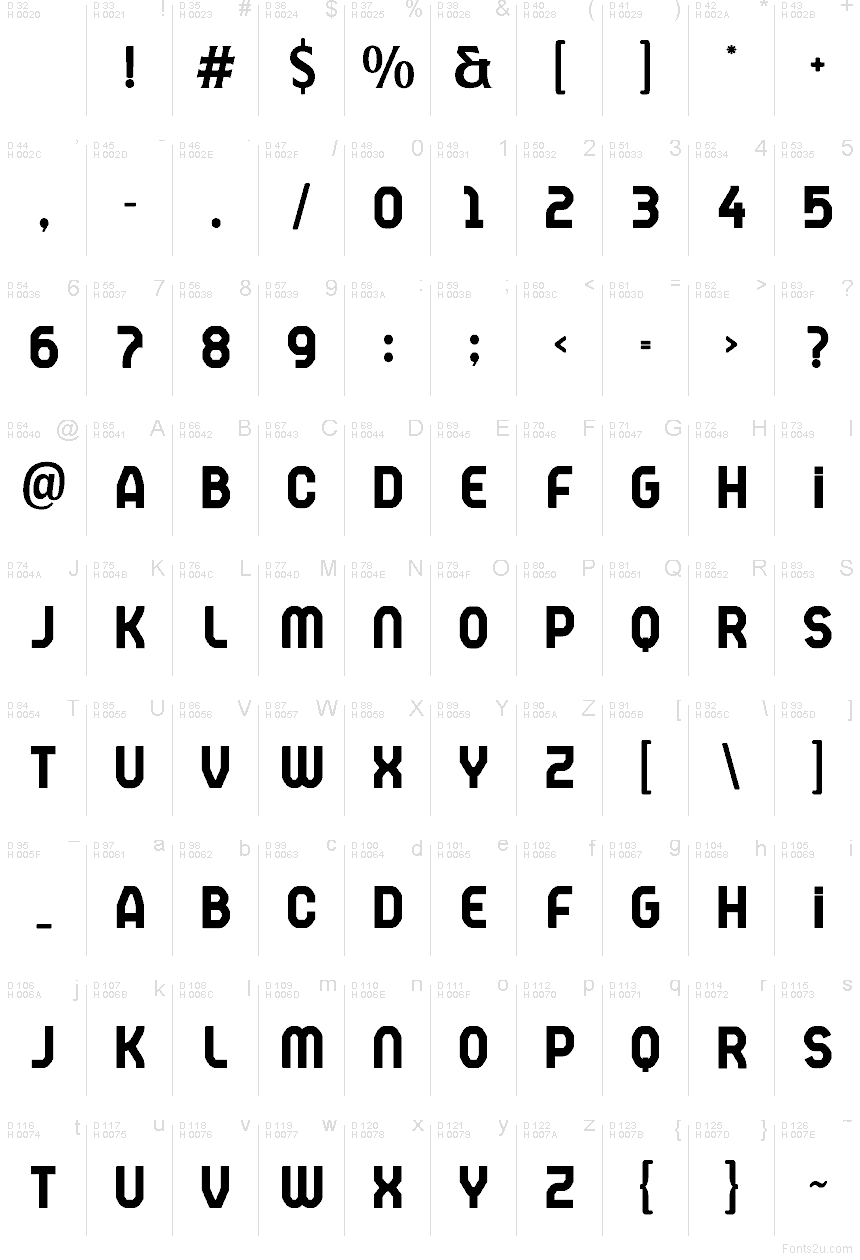
Catalunya Sans by Trequartista Studio is a free geometric sans serif with a blunt, cut-corner rhythm that feels sturdy and slightly industrial. The letters lean on broad, even strokes and octagonal curves, so the font reads less like a neutral sans and more like signage shaped with a knife and straightedge.
That makes it a natural fit for posters, sports branding, record sleeves, title cards, and bold packaging where short words need a hard-edged presence. As a free font, it also suits logotypes, cover lines, and monogram-style initials, because those clipped rounds give even simple letters a compact, unmistakable silhouette.